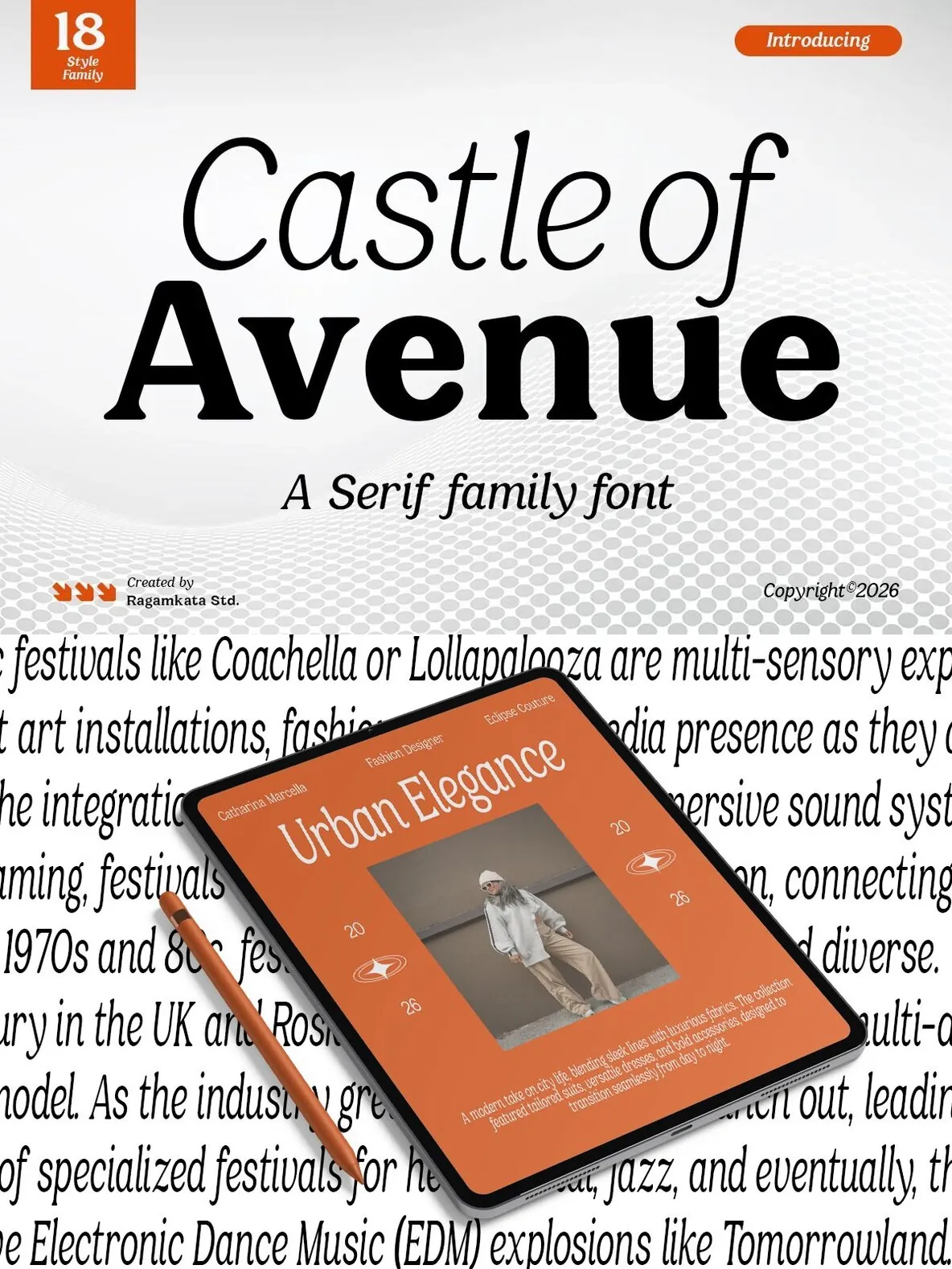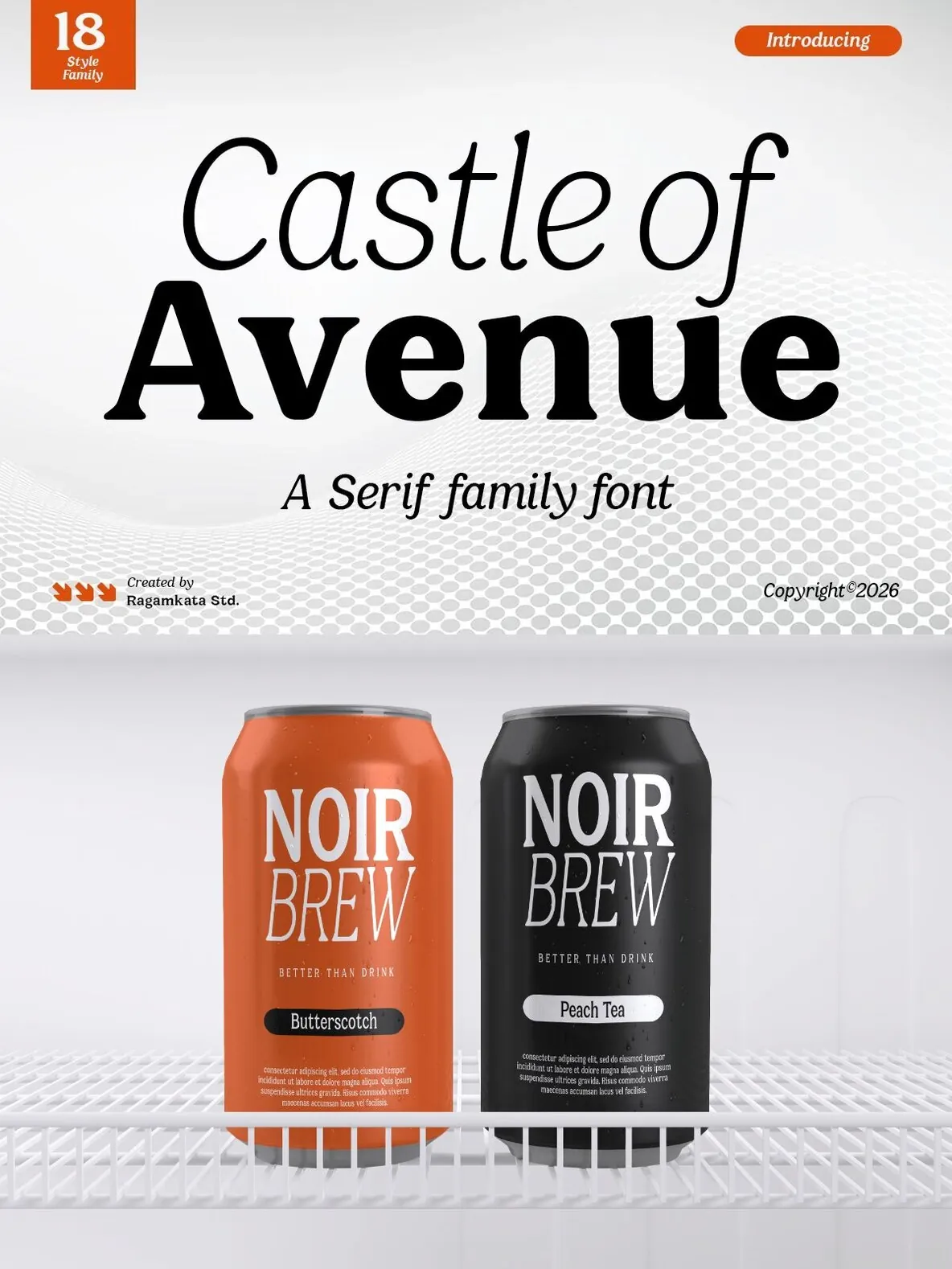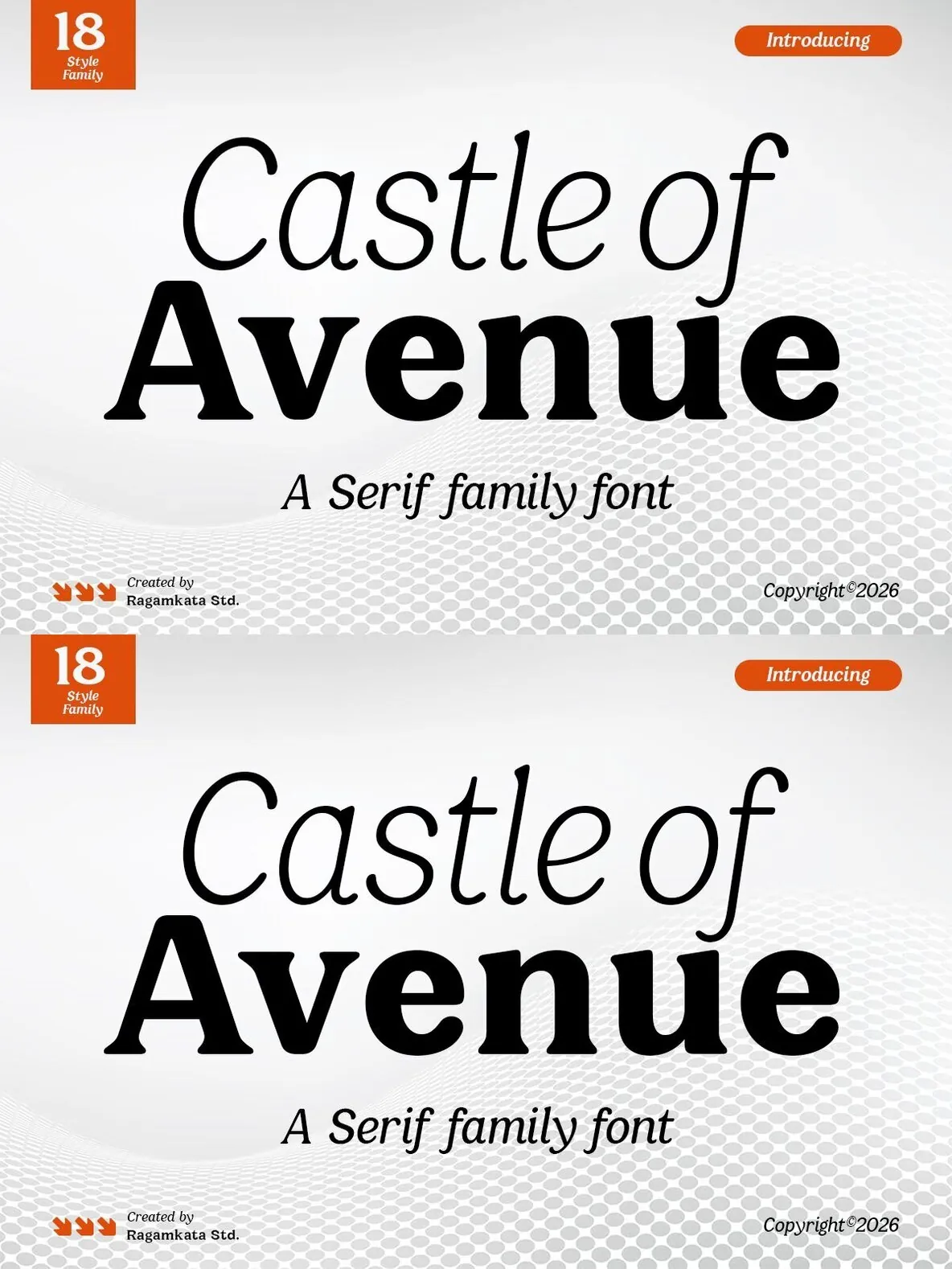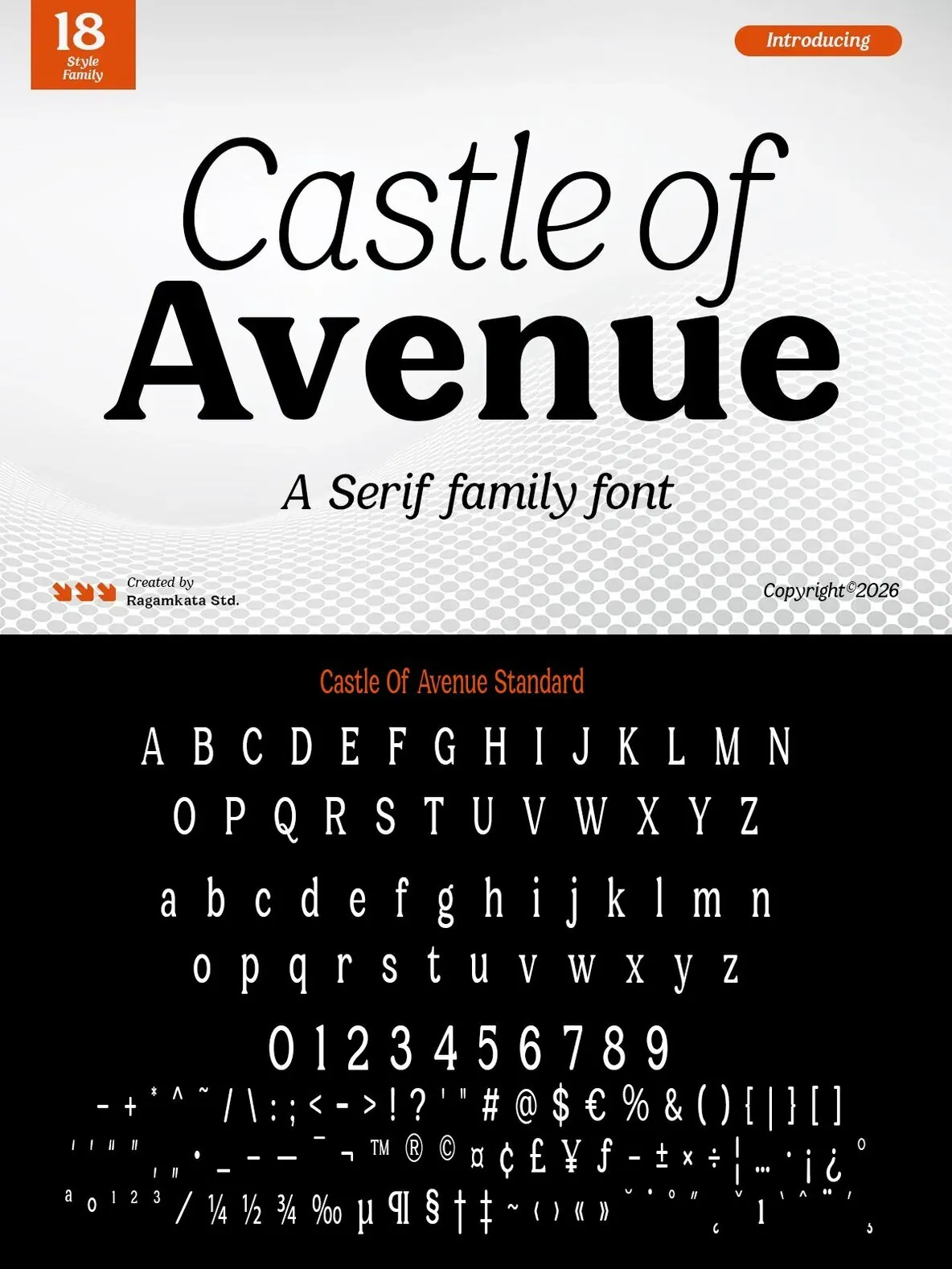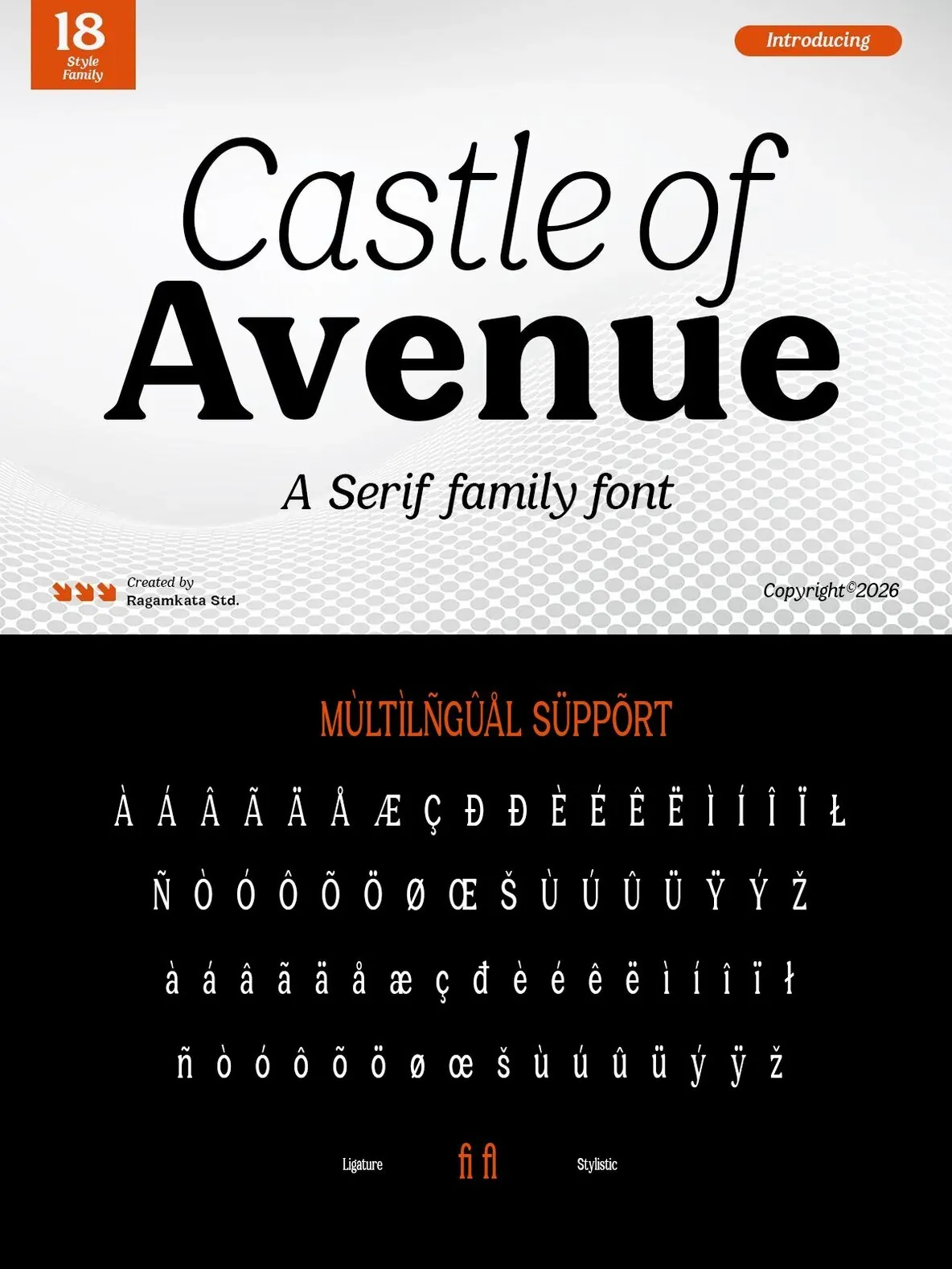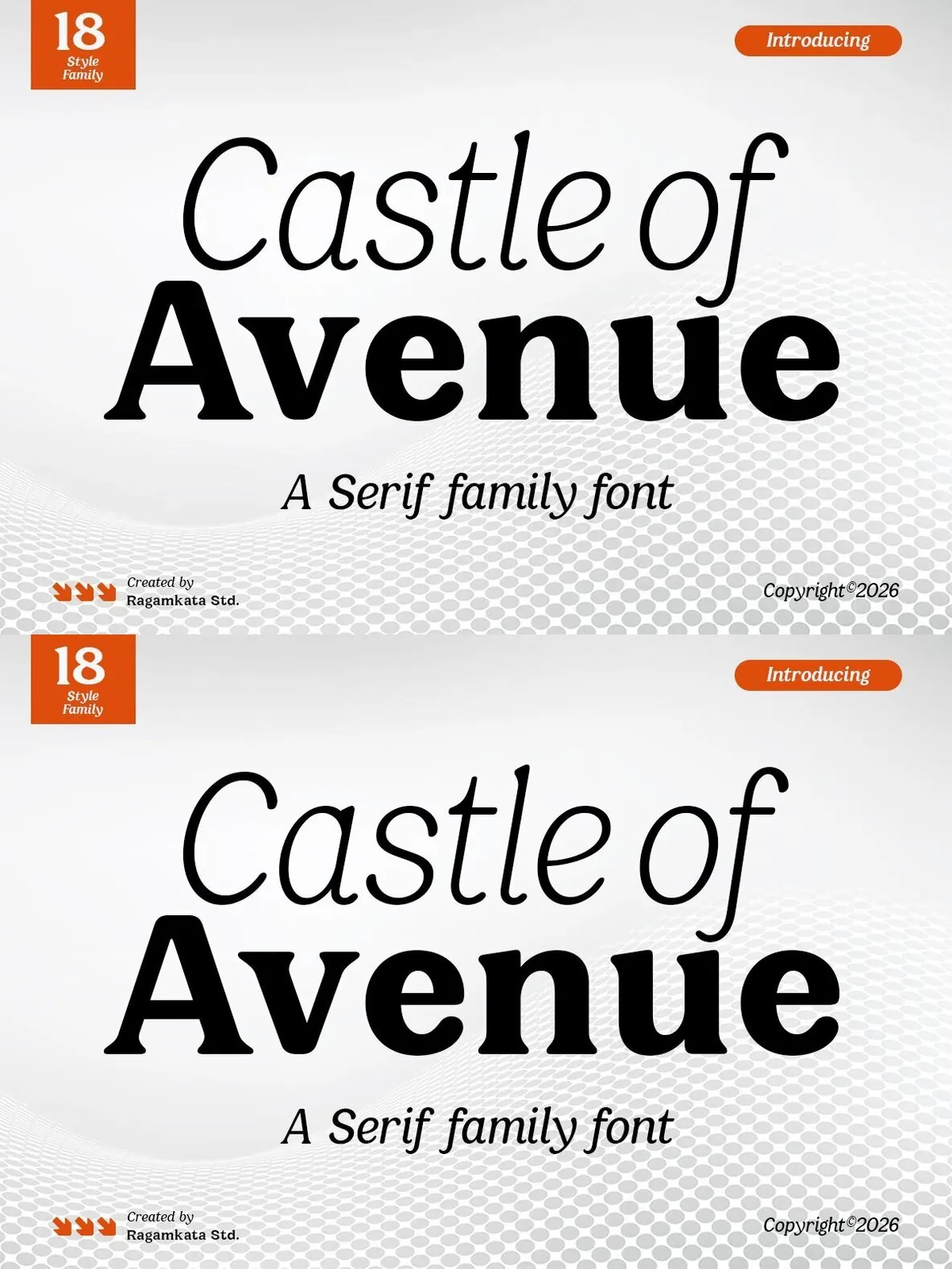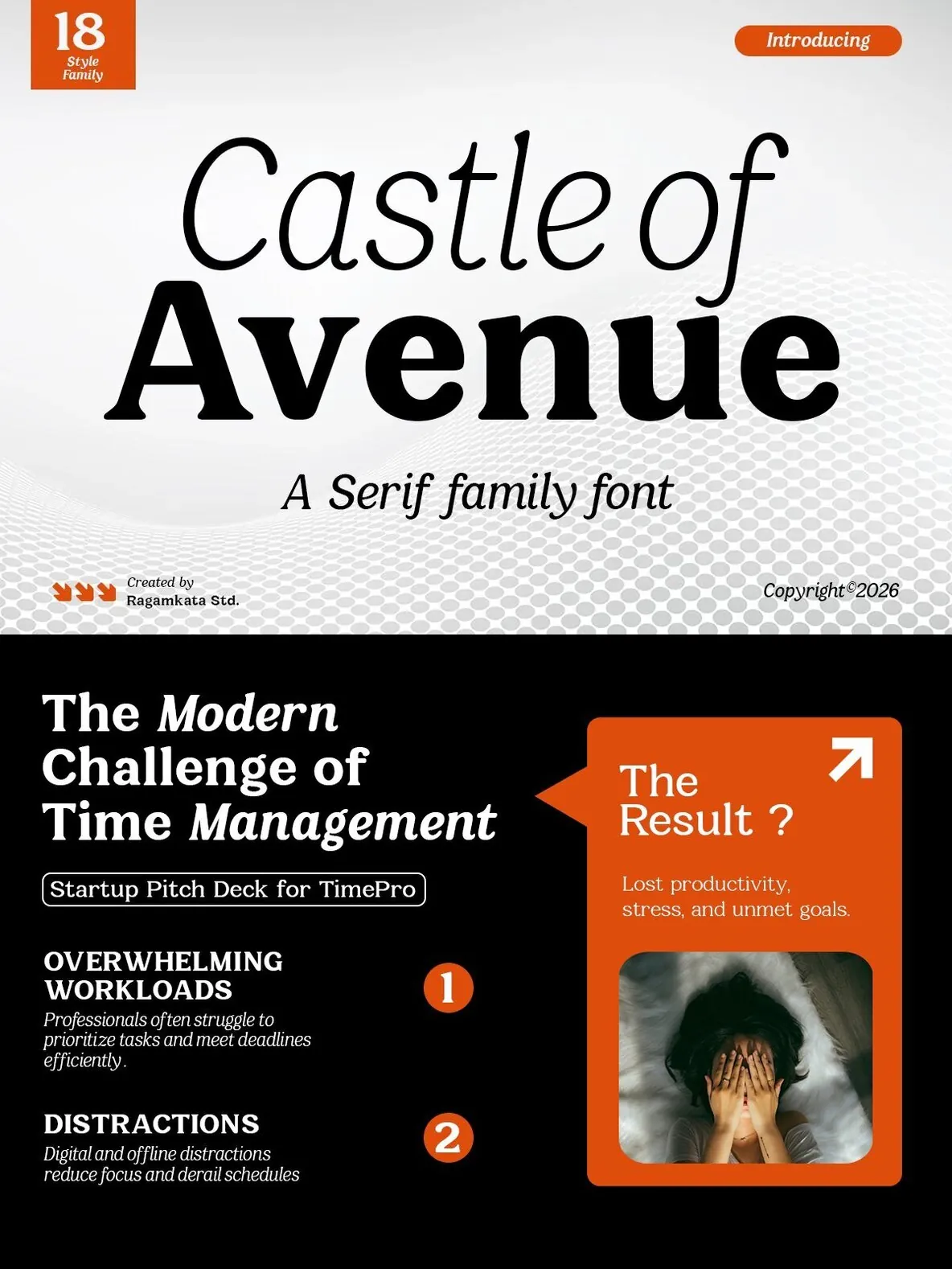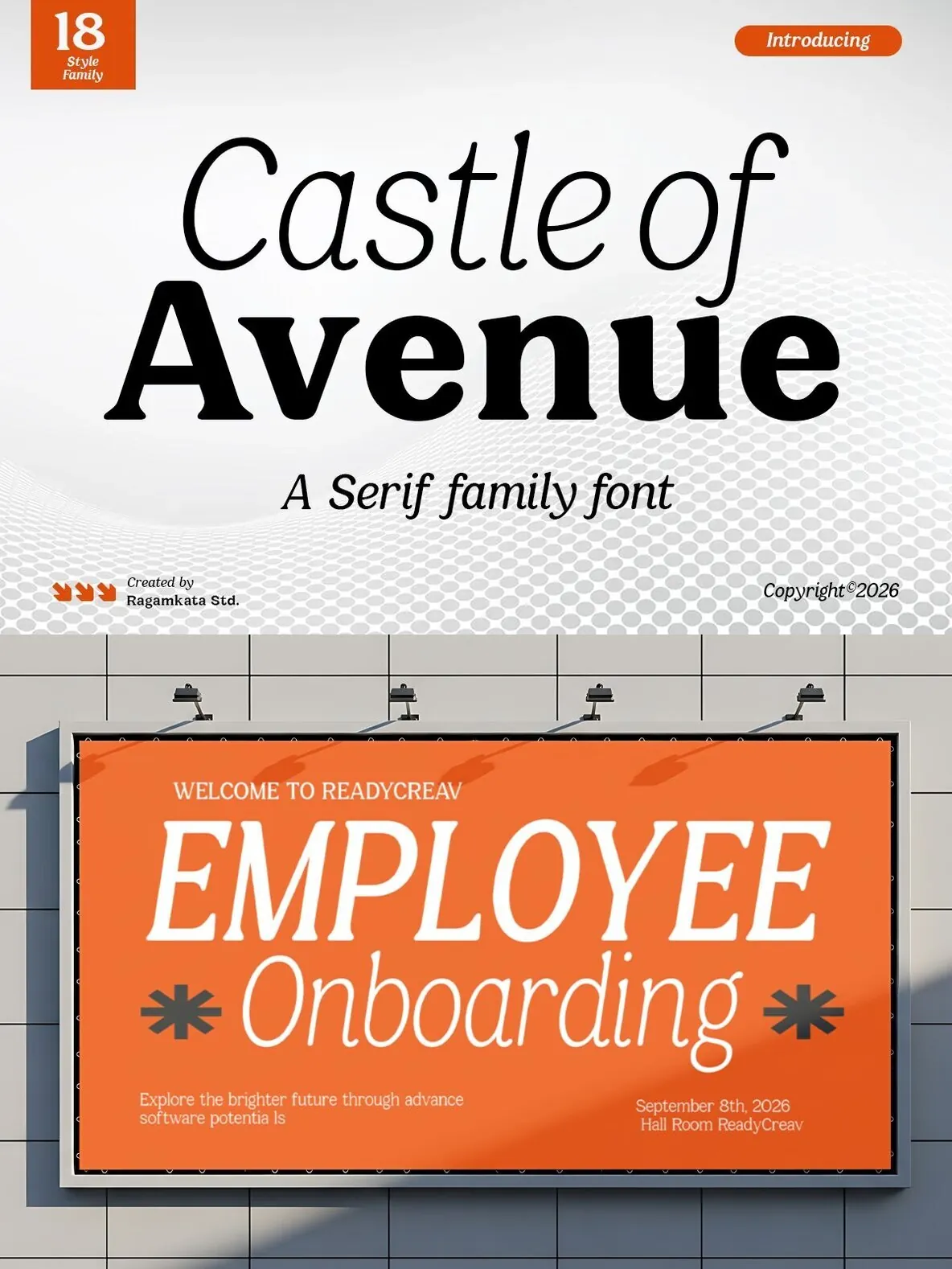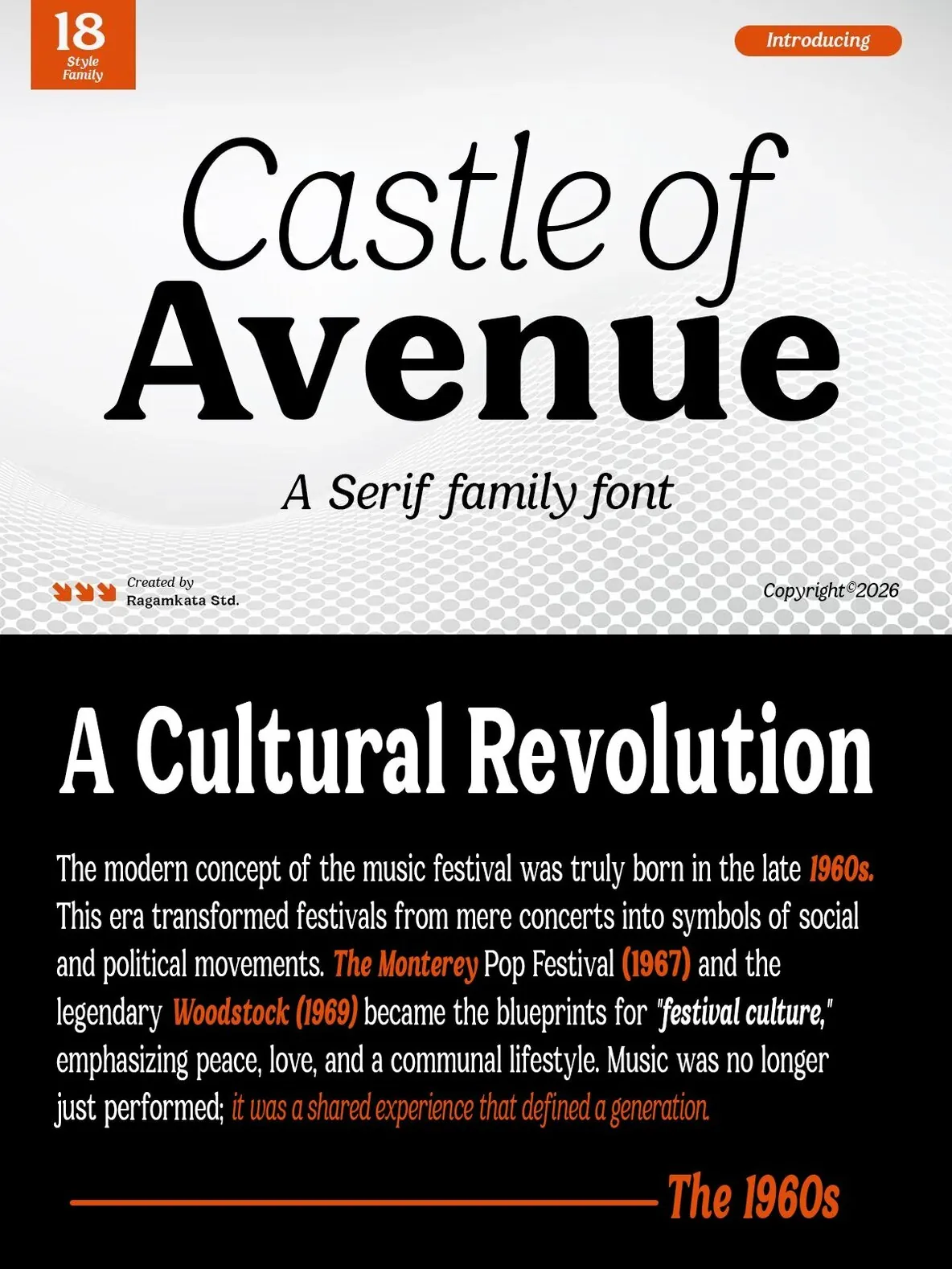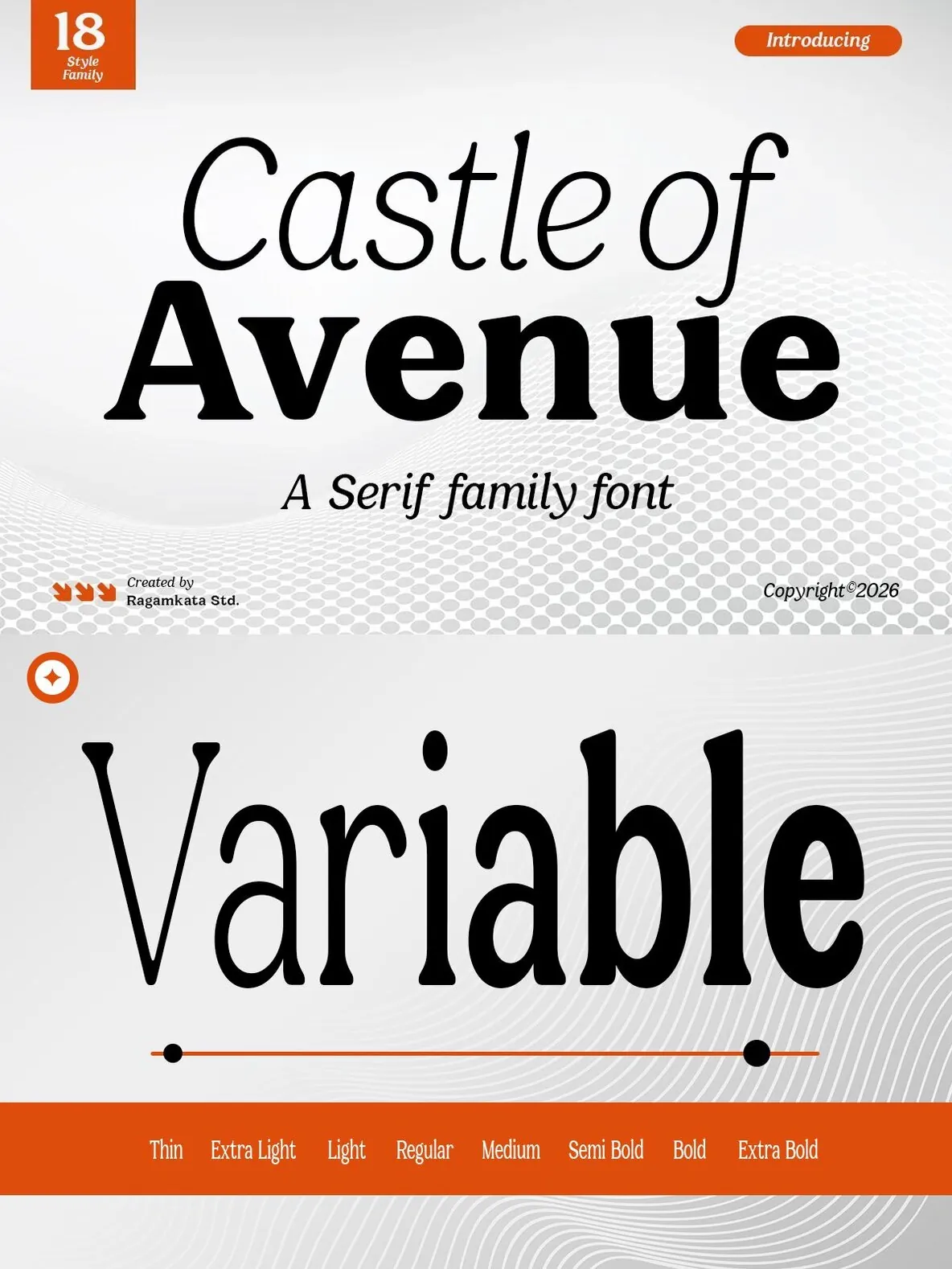
Castle of Avenue — Quiet Luxury in Serif
Castle
of Avenue is a refined serif family font built for elegant, timeless typography in modern design. With 18 style variations, it gives you a complete typographic system that balances classic serif character with contemporary flexibility. Graceful curves and confident letterforms support strong readability while keeping a polished, high-end tone.
Use Castle of Avenue for branding, editorial design, luxury packaging, fashion magazines, logos, and high-end visual identities. The family moves easily from delicate italic styles to bold, powerful weights, helping designers keep hierarchy consistent across layouts and campaigns. It suits premium brand identities, elegant publications, and stylish marketing visuals where detail and restraint matter.